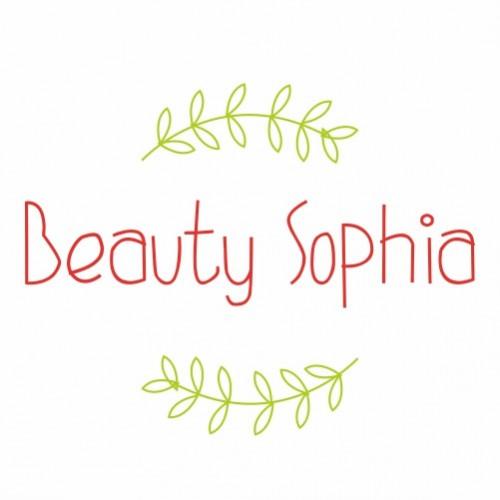
Brownie Bear Font Description
Who isn’t familiar with teddy bears? Everyone grows up with a teddy bear, and thoughts of these stuffed animals evoke a sense of familiarity and warmth. Brownie Bear is a font that aims to simulate those feelings, and is a soft and approachable sans serif font.